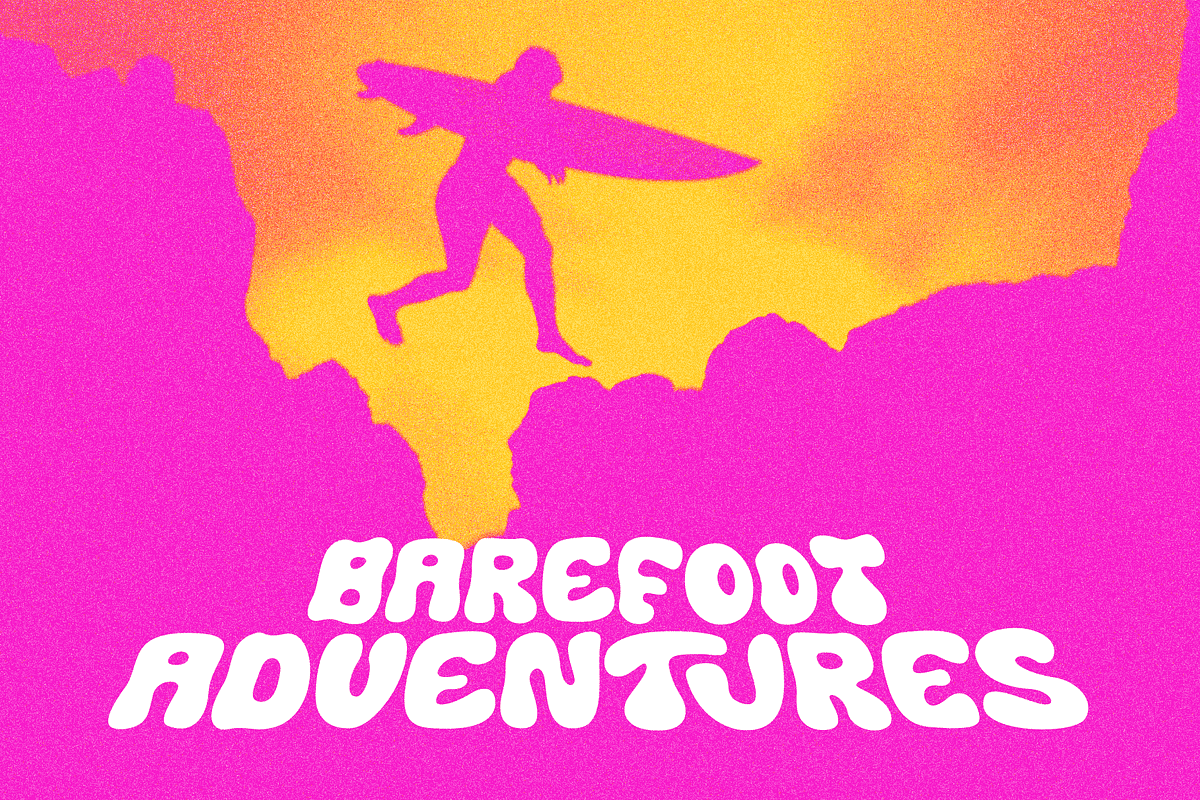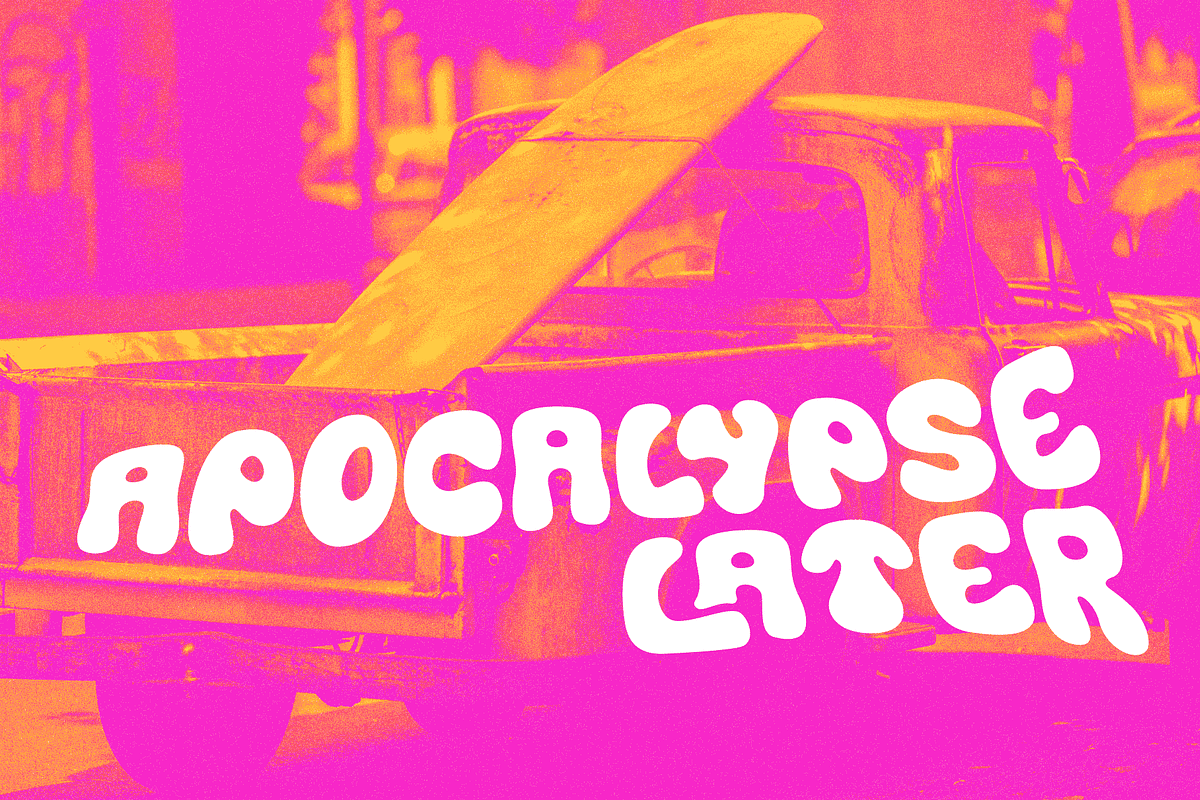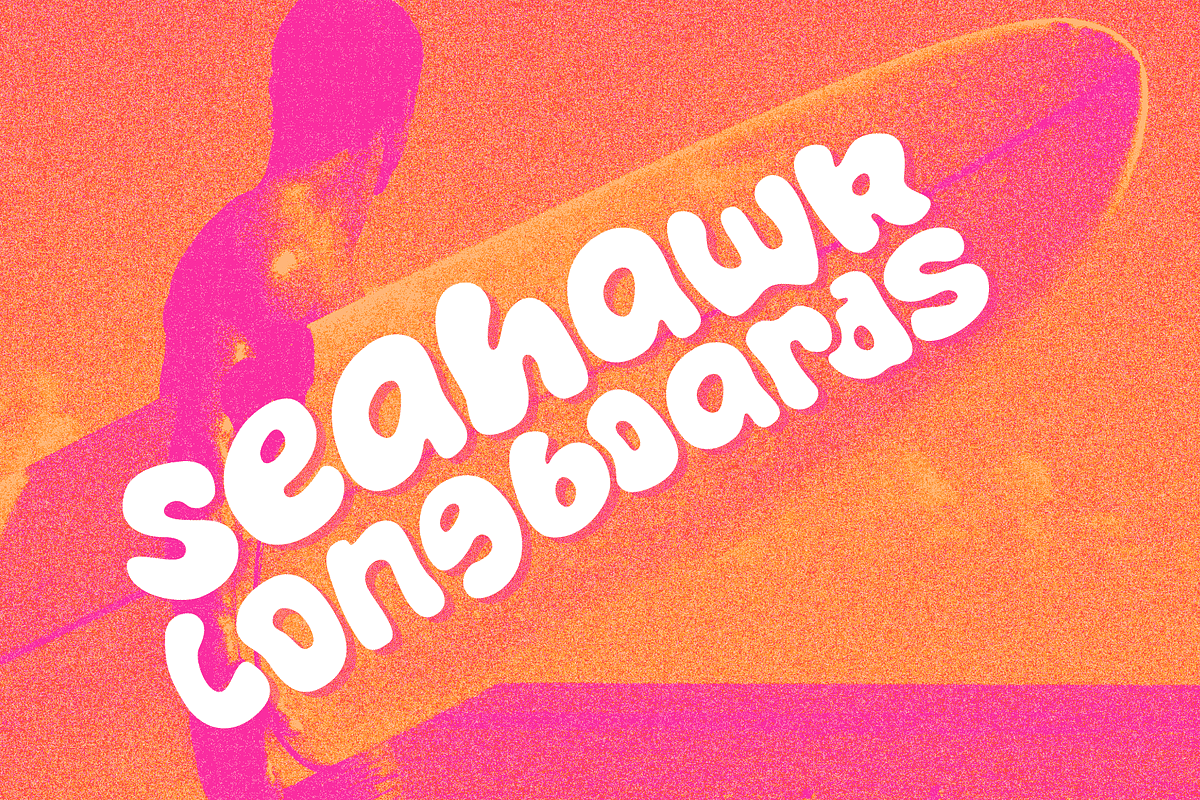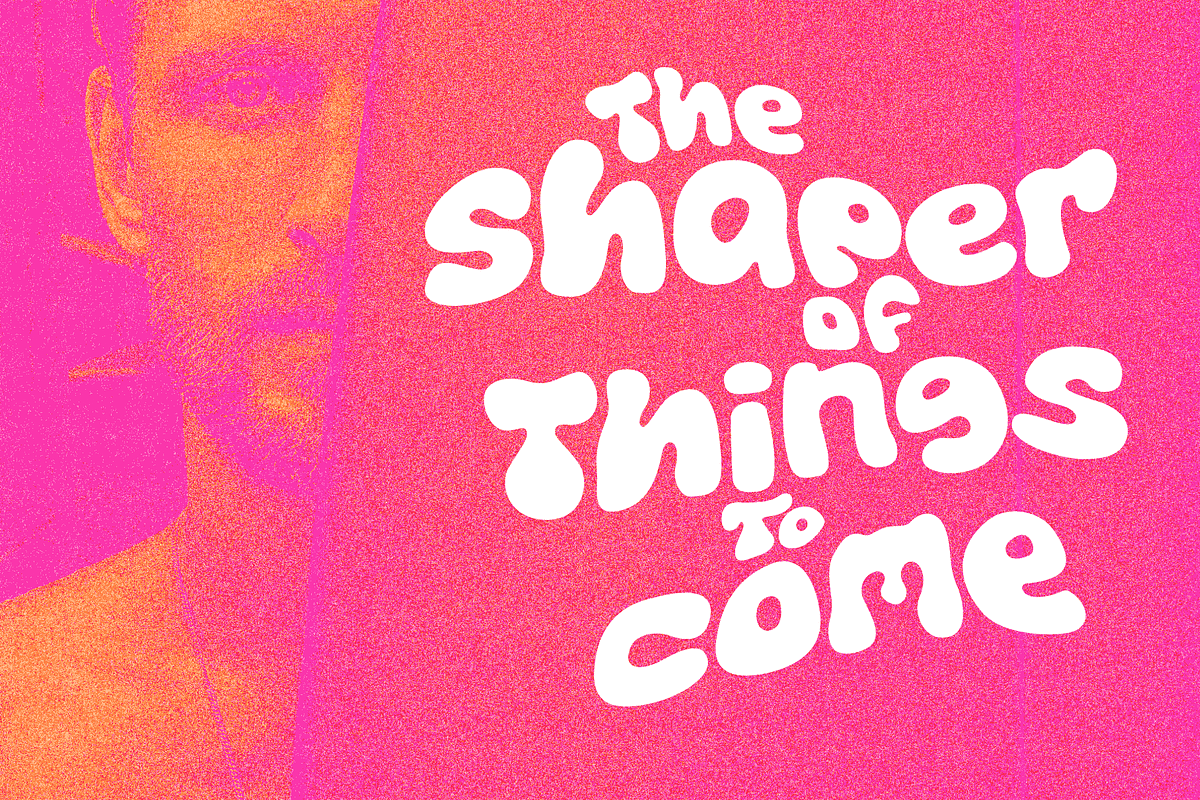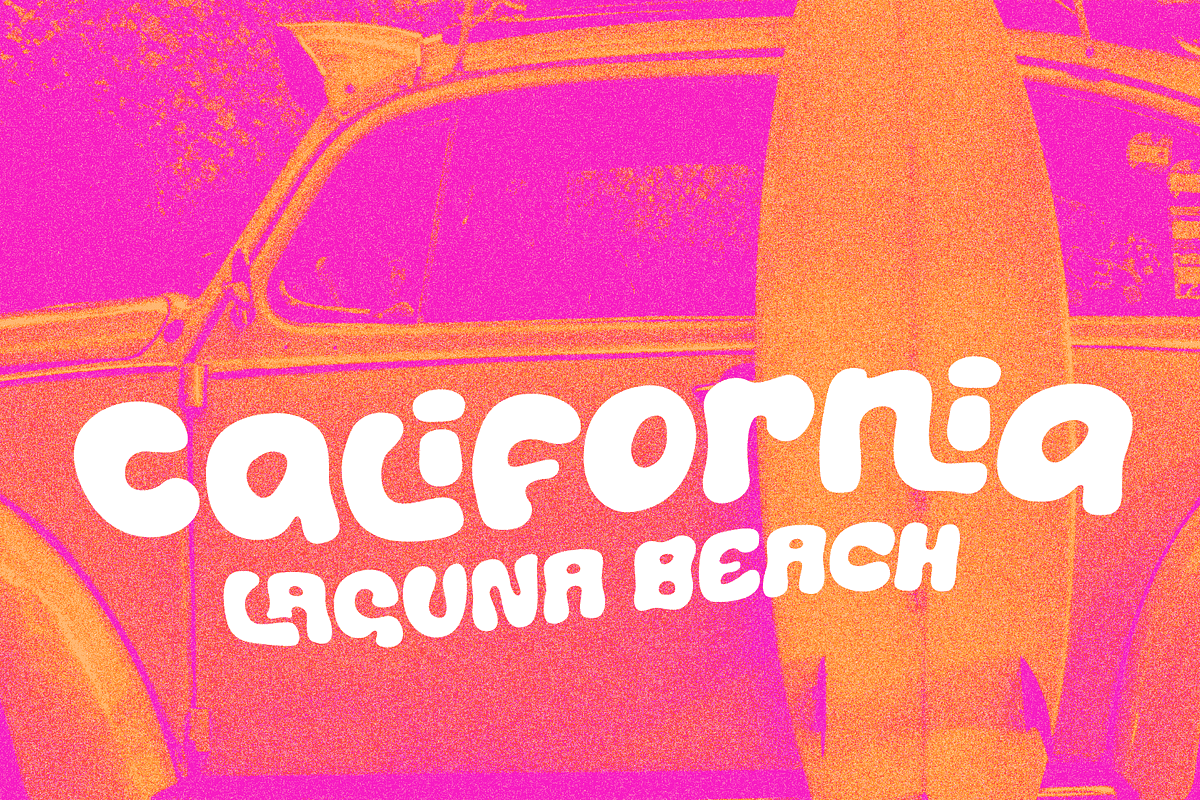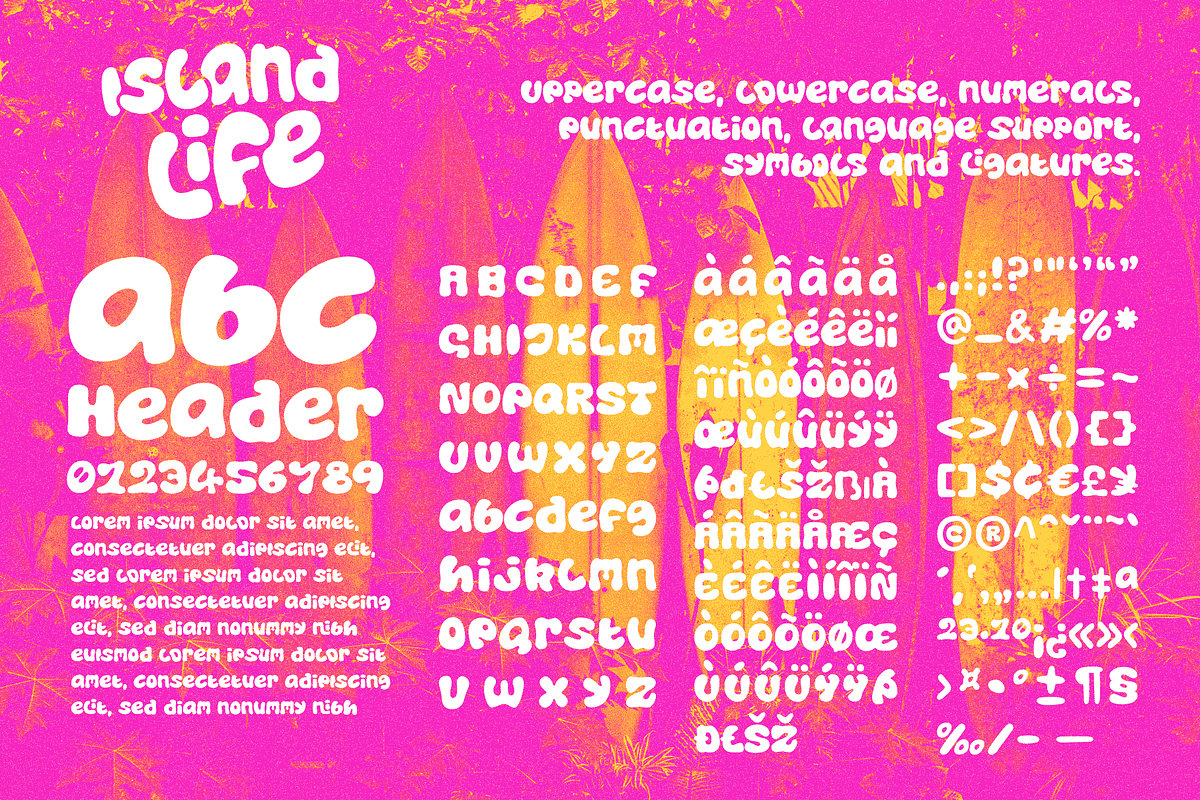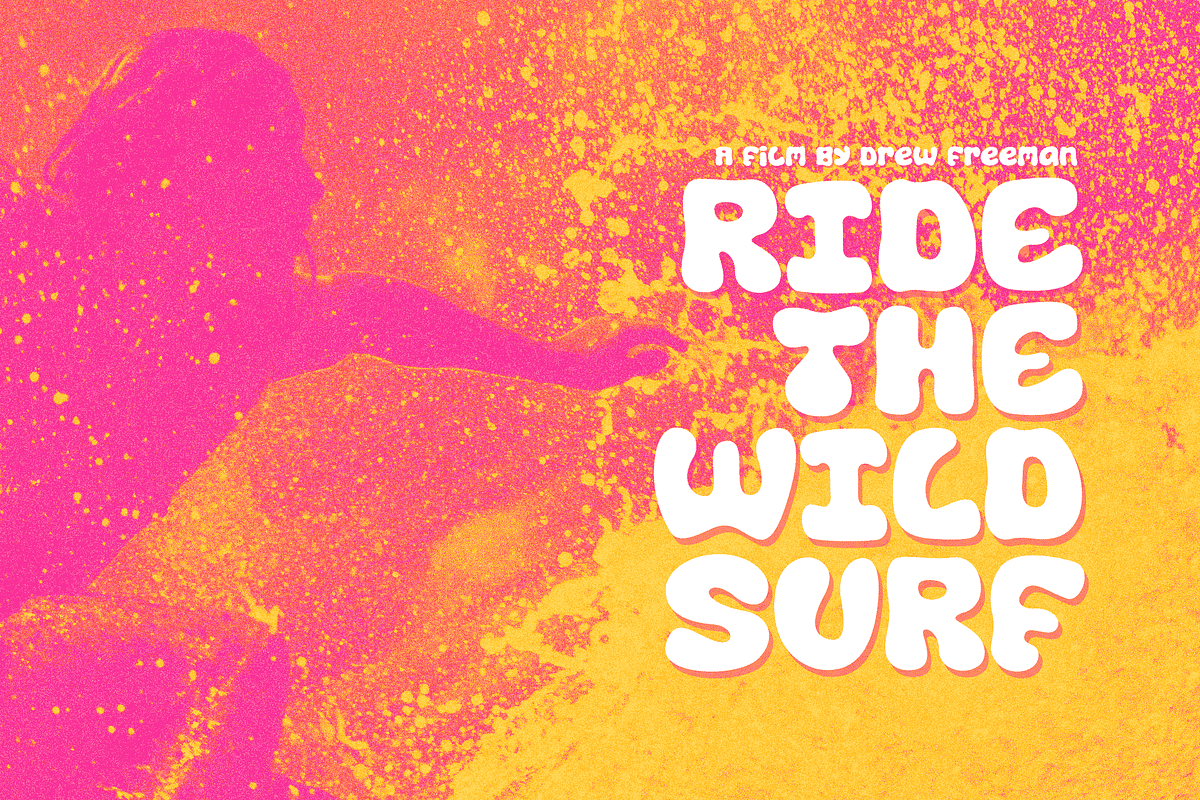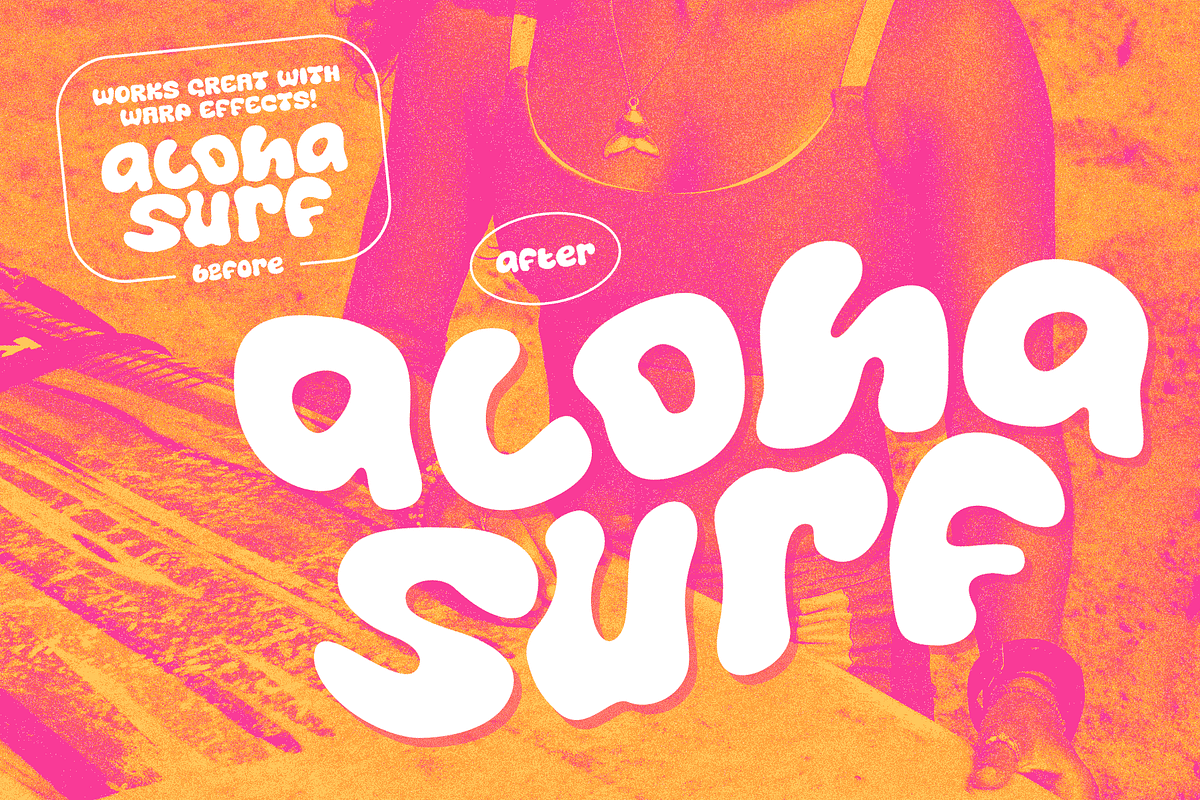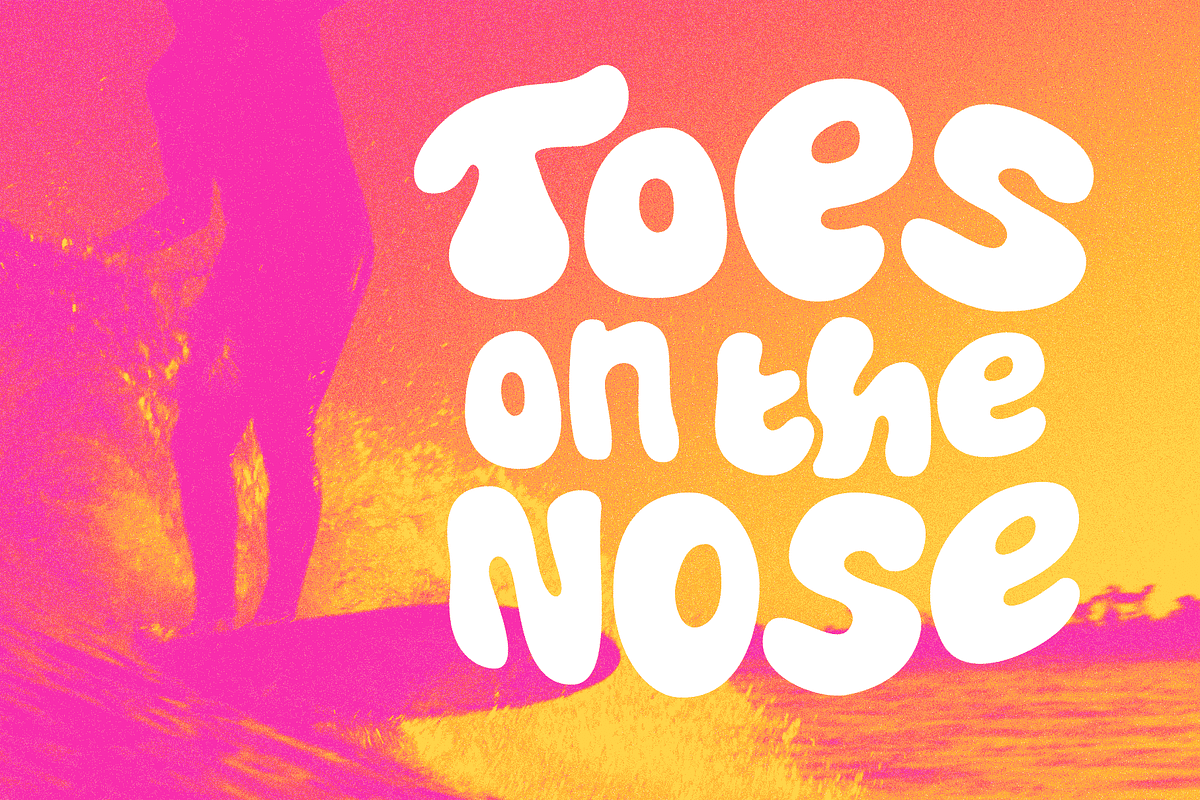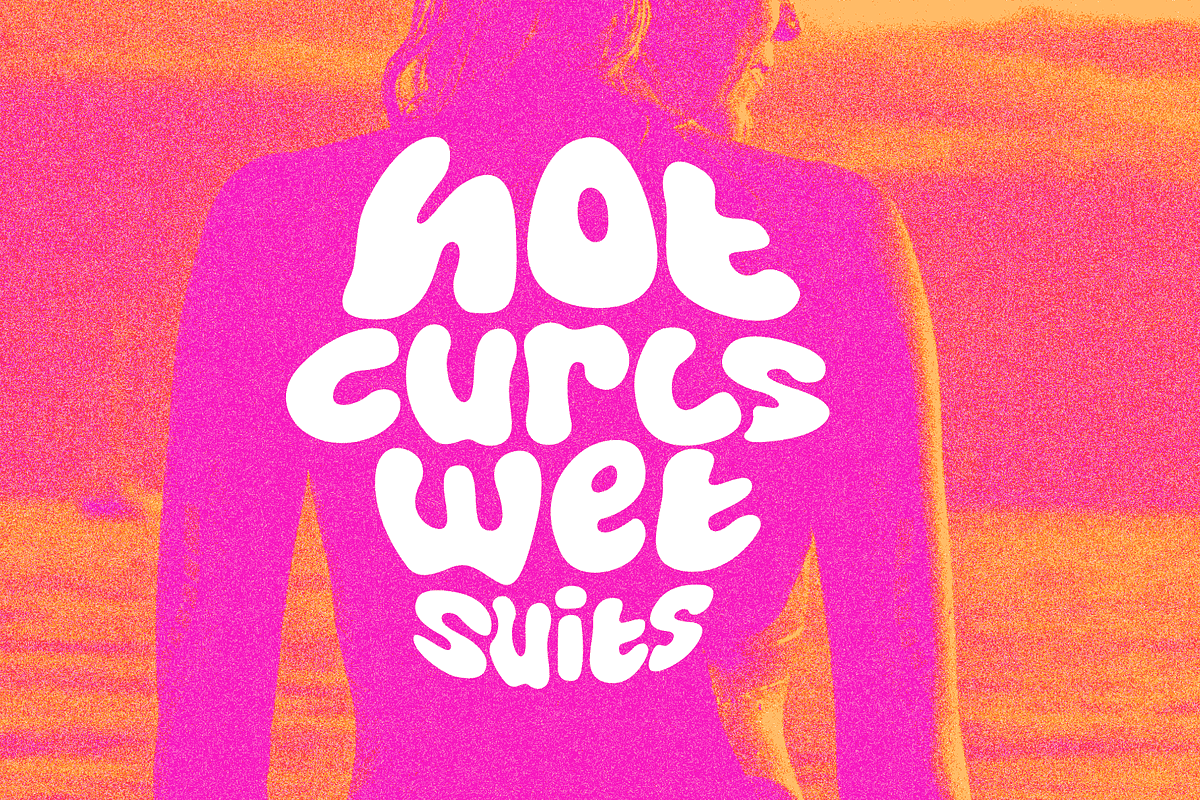
Island Life - A Summer Surf Font
Island Life - A Wavy Font Inspired by 1970s Surf Culture. Designed by Wingsart Studio
Island Life is a font inspired by the loose, wavy style of type associated with 1970s surf culture. Often found on lo-fi surf movie posters, t-shirts and decals, it’s an aesthetic that promotes a laid-back, summer loving style.
With a zen “be like water” approach, this font has no straight edges. Behaving like letters inside a Lava Lamp, each individual character blends into a harmonious whole; perfect for groovy titles, logos and headers.
The Island Life font features unique uppercase and lowercase characters, along with numerals, punctuation and language support, symbols and lots of custom ligatures for a truly hand-made look. All ligatures function automatically and can be turned on/off using the opentype features built into your software of choice.
It’s the perfect font for the summer season and works great across posters, logos, t-shirts, menus and more. I recommend first laying out your text and then experimenting with warp, wave and bulge effects for some excellent results. Check out the visuals to see it in action.